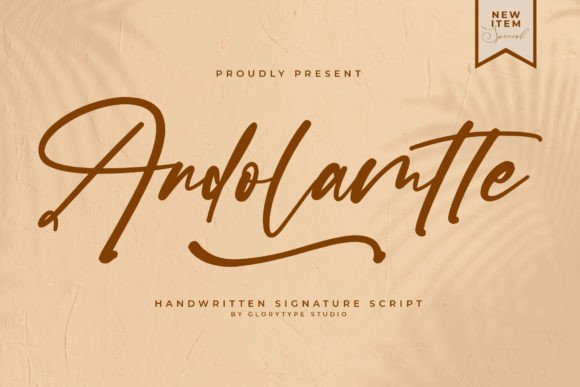
The Andolamtte Font: A Handwritten Signature Script for Creative Projects
I’ll never forget the time I was working on a branding project for a small business, and I just couldn’t find the right font to capture their playful yet professional vibe. That’s when I stumbled upon the Andolamtte font, a beautiful handwritten signature script that instantly won me over. In this article, I’ll share my experience with Andolamtte, its features, and how to make the most of it in your creative projects.
An Honest Review of Andolamtte
What I Love About Andolamtte ✨
- 💕 Andolamtte’s elegant, cursive strokes make it perfect for logos, branding projects, and homeware designs.
- 🎉 Its versatility allows it to be used for a wide range of applications, from product packaging to t-shirts and book covers.
- 👍 The font’s readability ensures that your message gets across clearly, even at smaller sizes.
- 💫 Andolamtte’s unique character makes it an excellent choice for creative projects that require a personal touch.
While Andolamtte is an amazing font, there are a few things to keep in mind:
- 🤔 As a script font, Andolamtte can be a bit challenging to read at very small sizes or in large blocks of text.
- ⚠️ Some characters may require manual kerning to achieve optimal spacing.
The Backstory Behind Andolamtte
Andolamtte was designed with love and care by a talented type designer who wanted to create a font that captures the essence of handwritten signature scripts. The designer’s inspiration came from traditional calligraphy and the beauty of handwritten letters. The result is a font that’s both elegant and approachable.
Q: What is Andolamtte’s personality?
A: Andolamtte has a playful, yet elegant personality that makes it perfect for creative projects that require a personal touch.
Q: Is Andolamtte suitable for body text?
A: While Andolamtte is a beautiful font, it’s best suited for headlines, titles, and short paragraphs. For body text, you may want to choose a font with better readability.